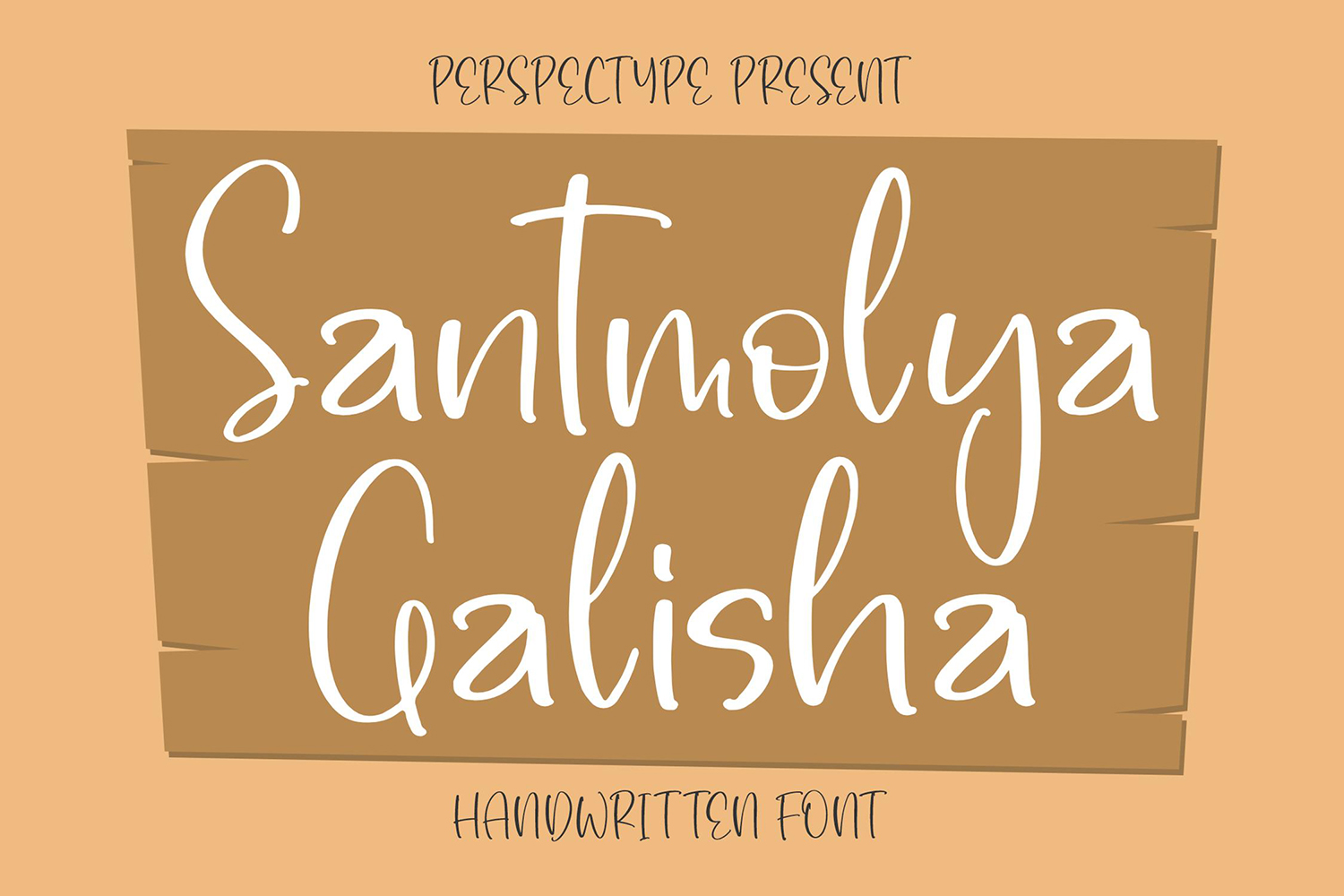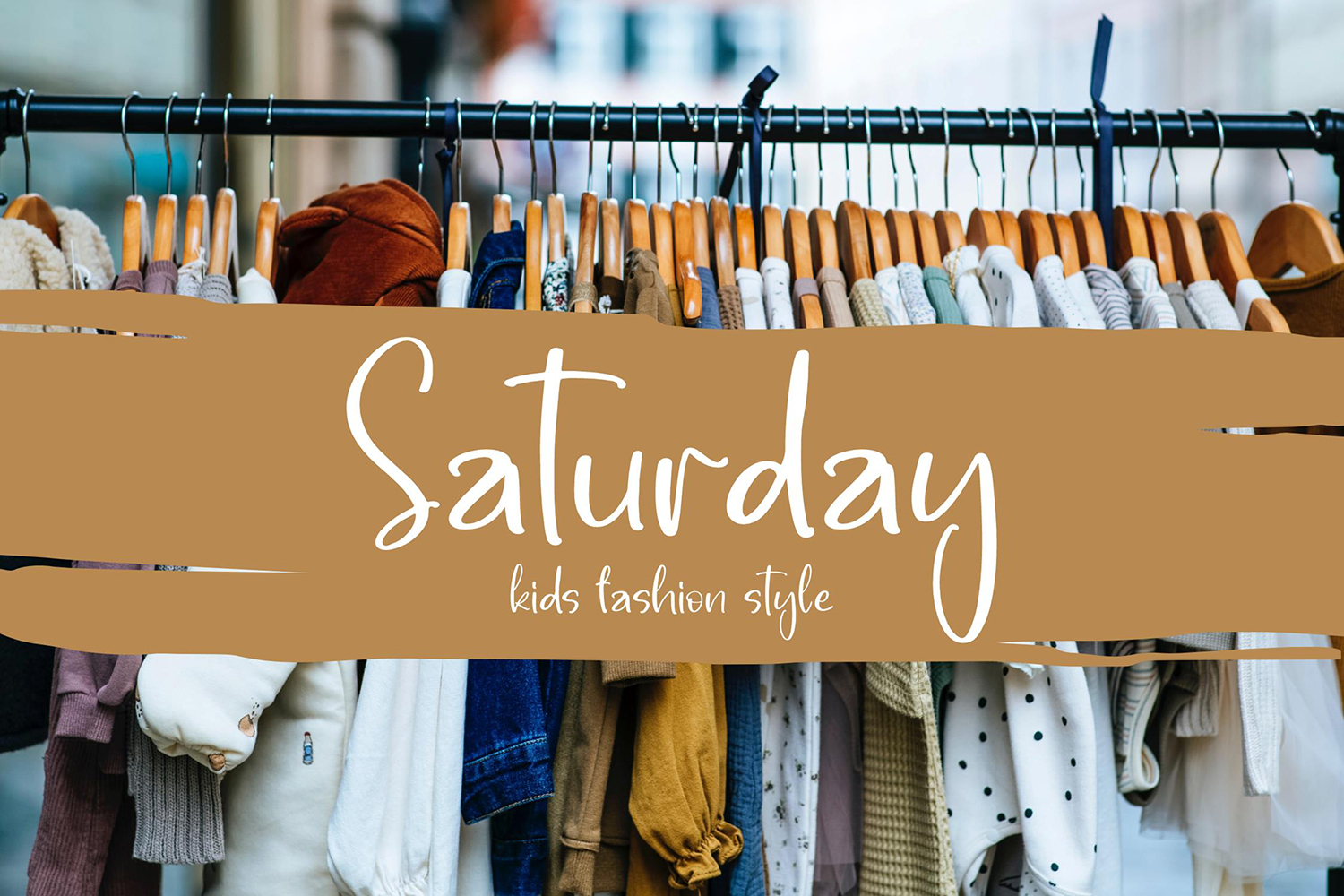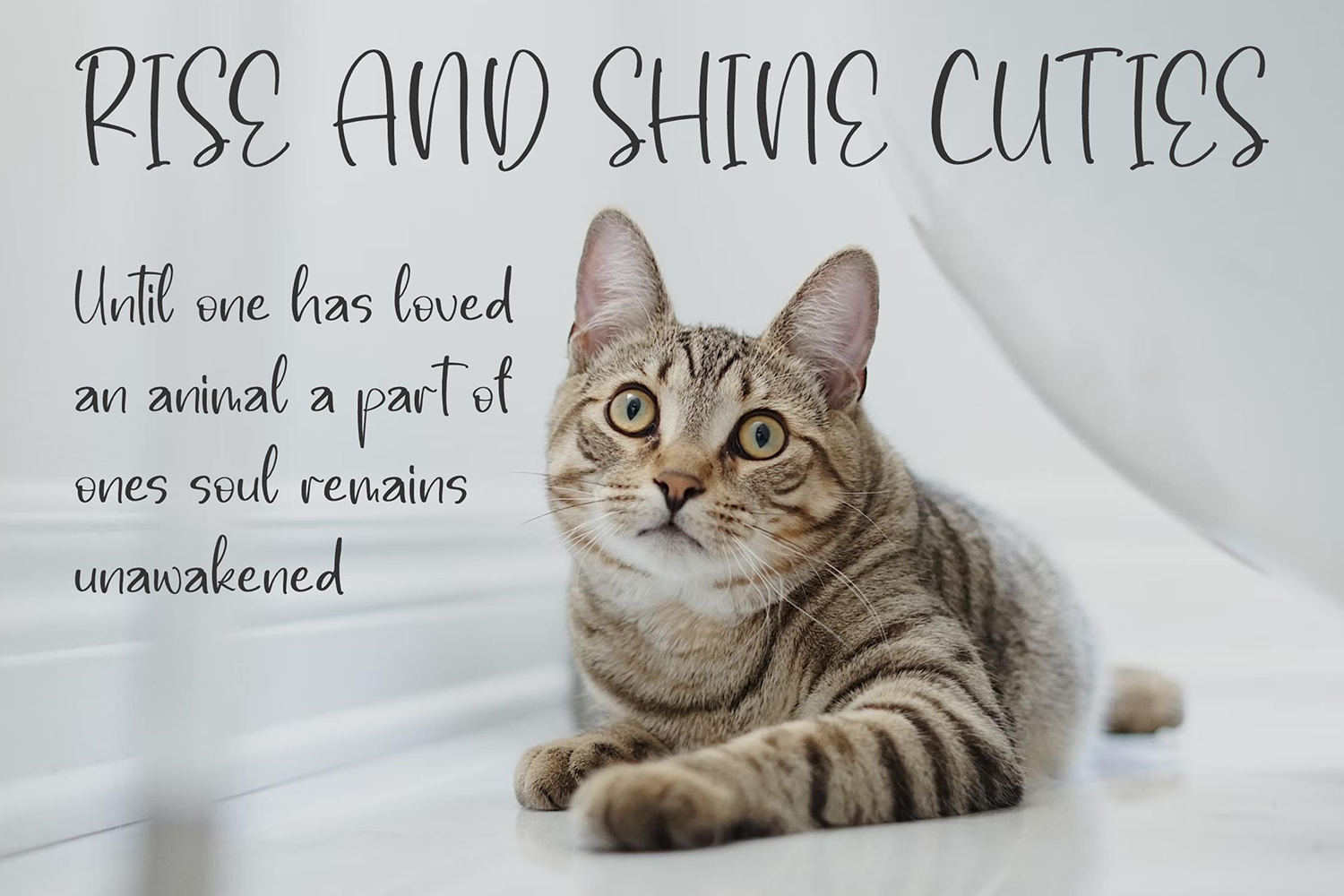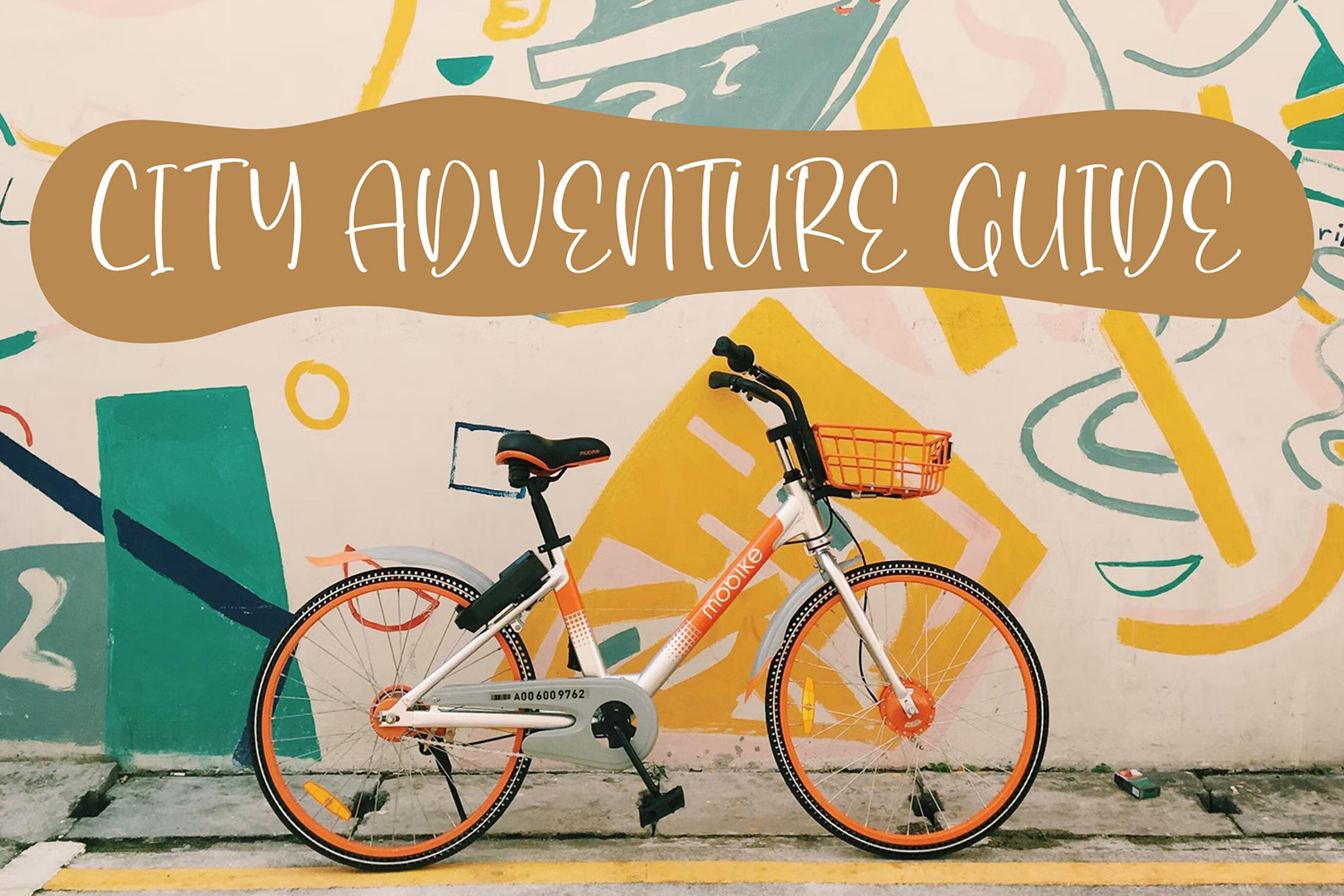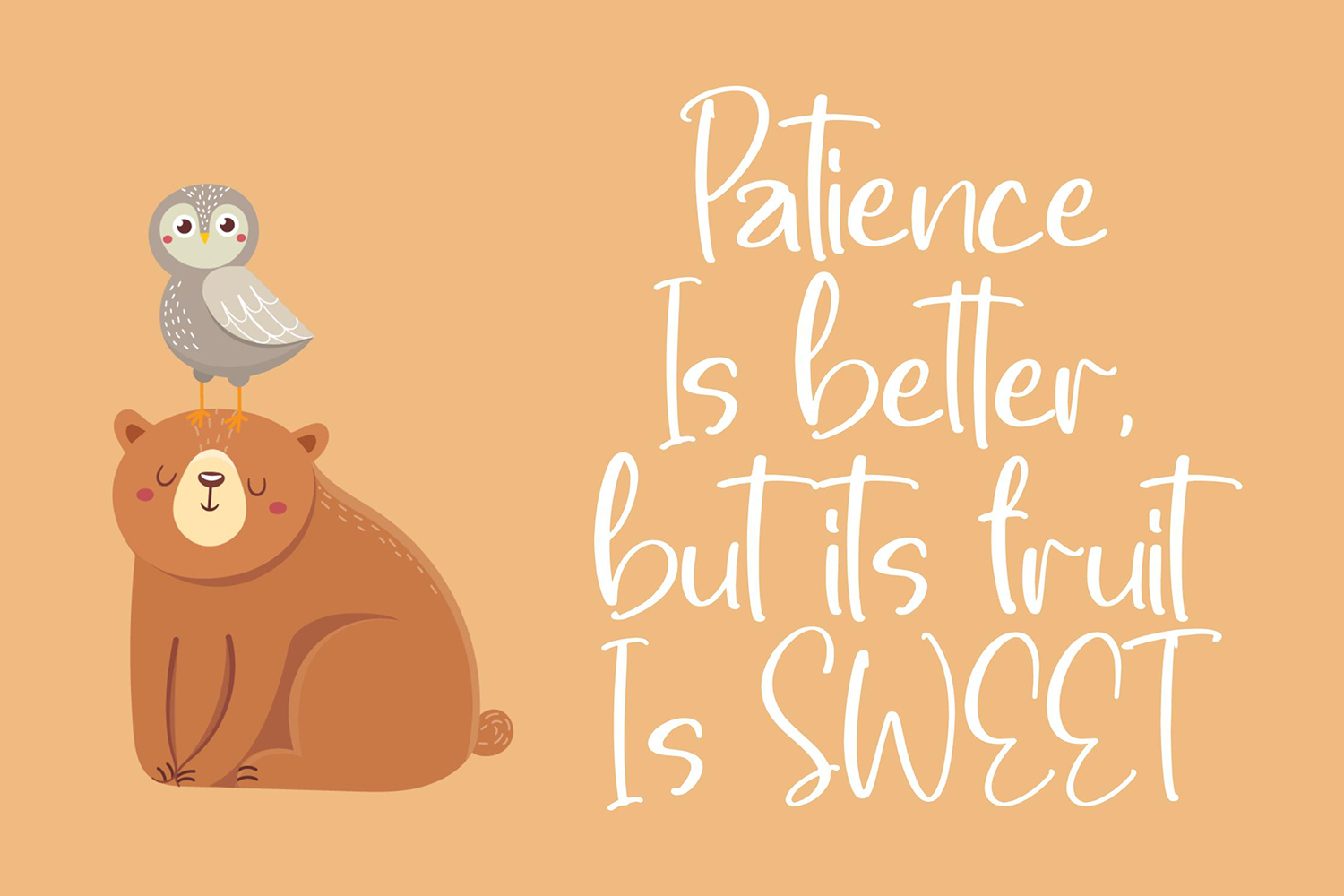
Santmolya Galisha Free Font
Santmolya Galisha Free Font is a handwritten font, suitable for any projects such as logos, branding projects, homeware designs, product packaging, mugs, quotes, posters, shopping bags, t-shirts, book covers, name cards, invitation cards, greeting cards, labels, photography, watermark, special events, and all your other lovely projects that need a beautiful script taste.